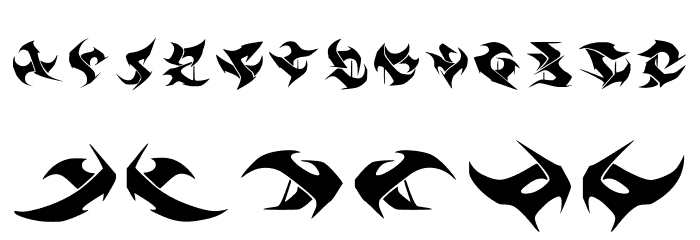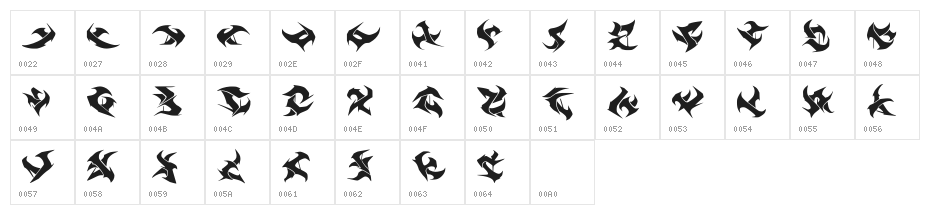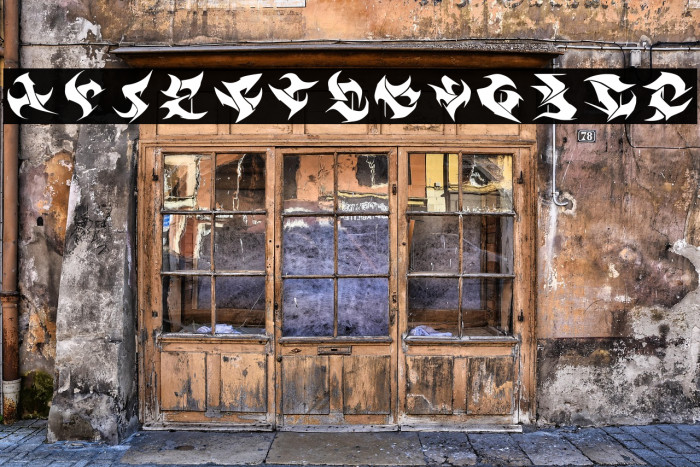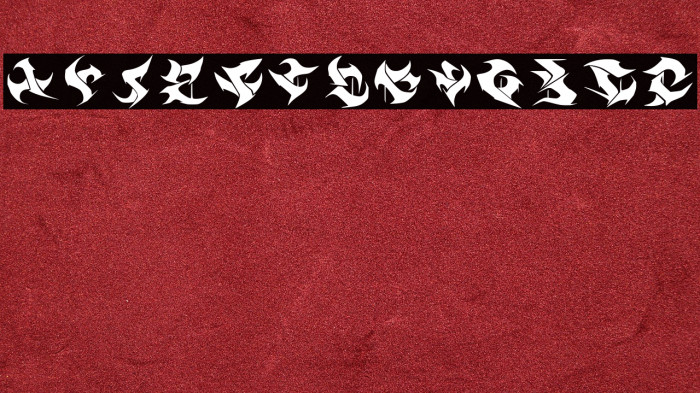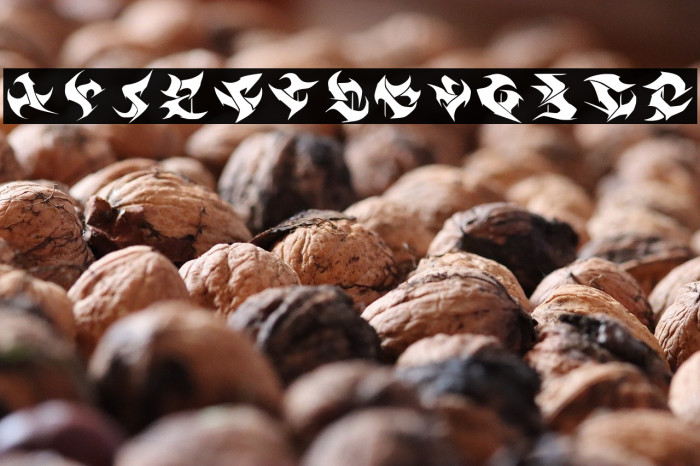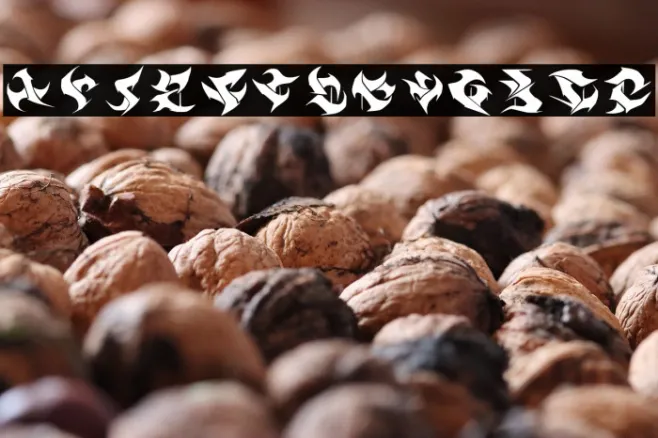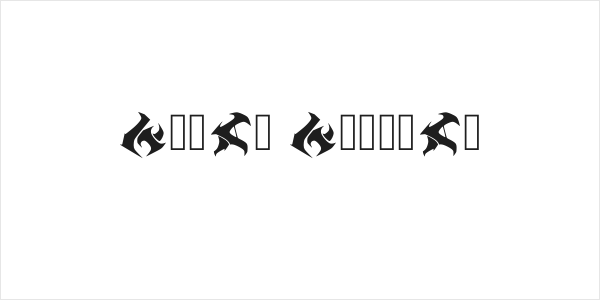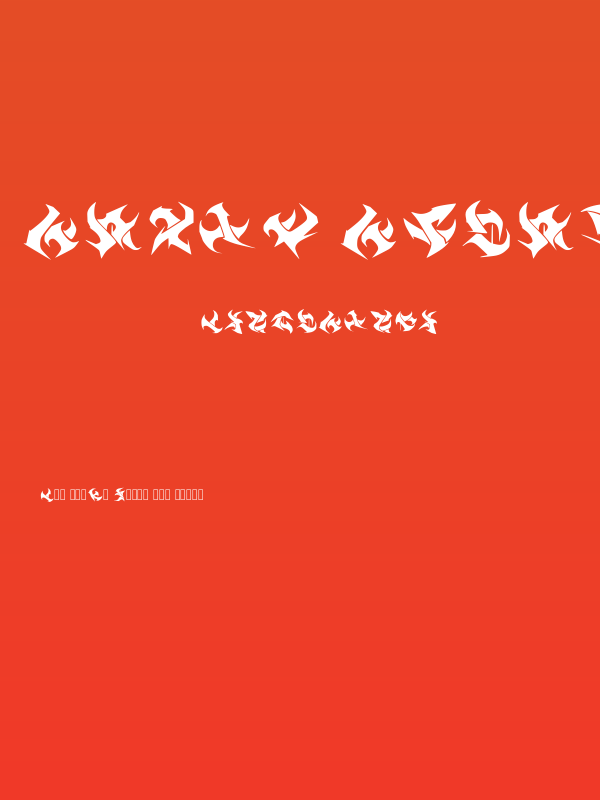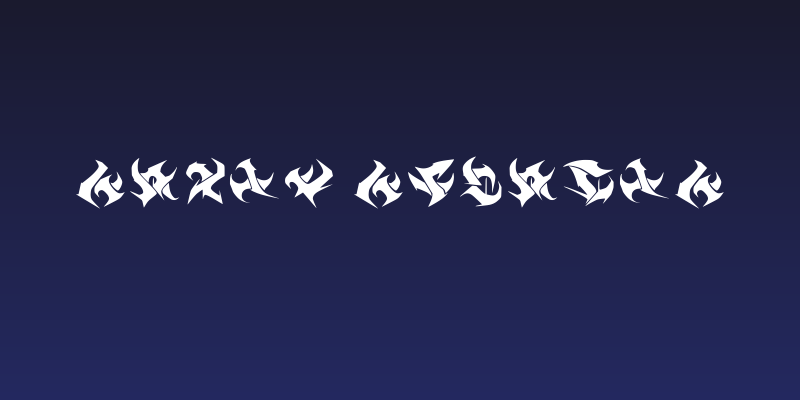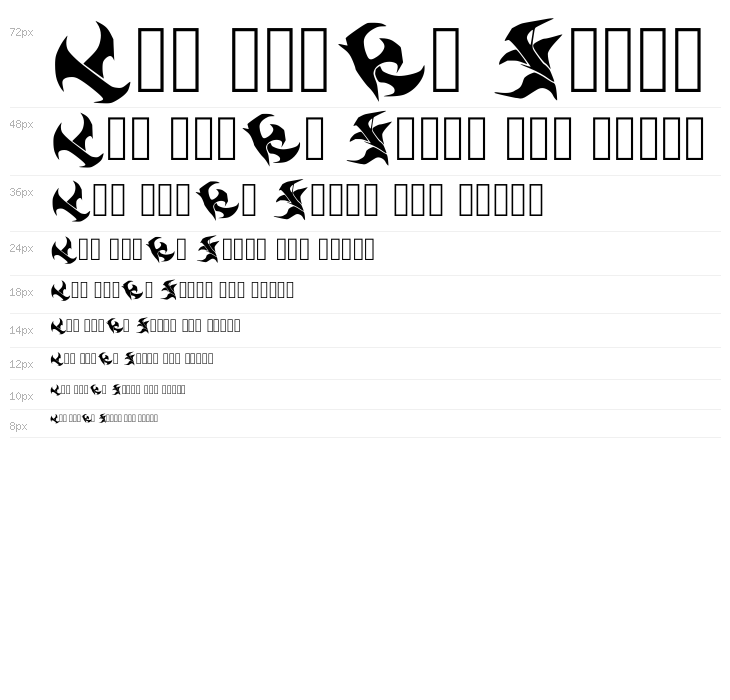
Runas Regular Font
Runas Regular Description
This font features a highly decorative and abstract style, characterized by sharp, angular shapes and bold, sweeping curves. Each character is uniquely stylized, creating a sense of movement and energy. The design is reminiscent of tribal or tattoo art, with a strong emphasis on visual impact. The font's intricate details and dramatic forms make it stand out, ensuring that any text set in this typeface will capture attention. Its artistic flair and unconventional appearance make it suitable for creative and bold design projects.
| Proposed Projects | Ideal for tattoo designs, album covers, posters, and any project requiring a bold, artistic touch. |